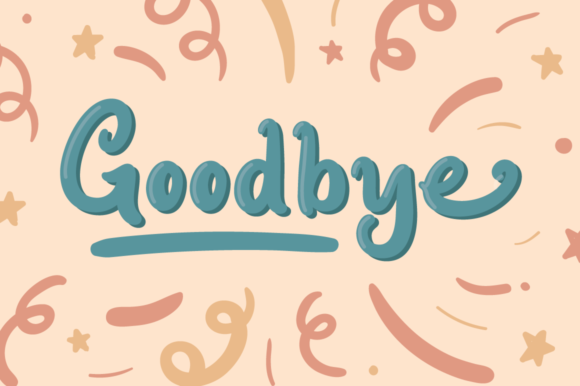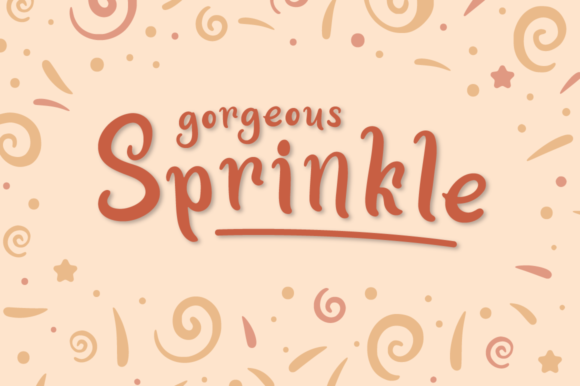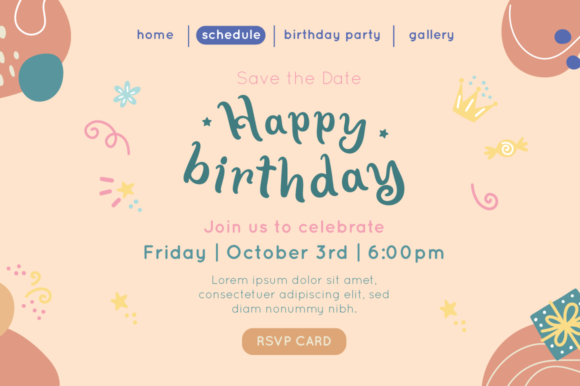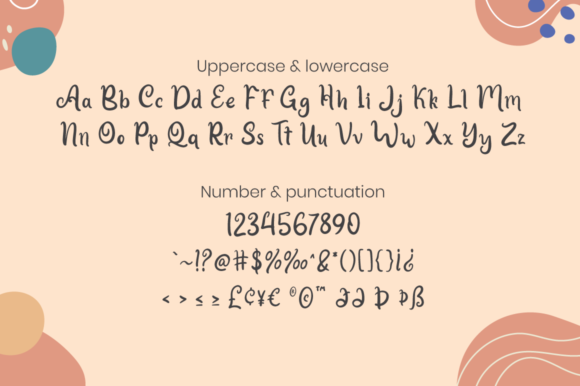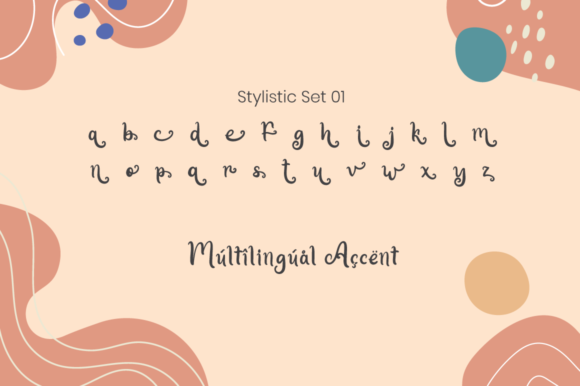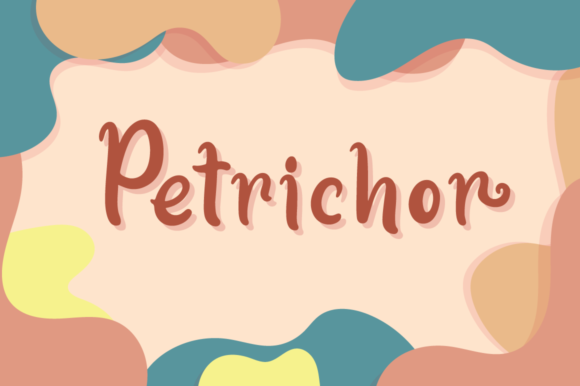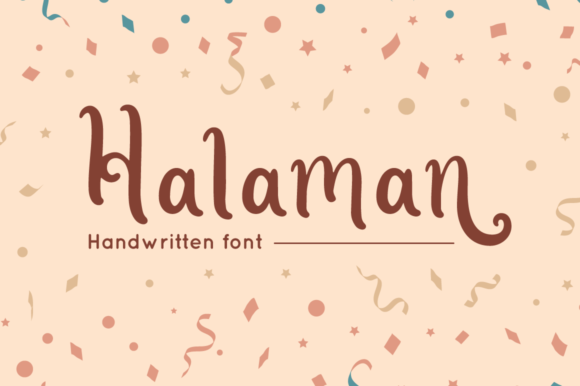
Halaman Font: The Ultimate Choice for Elegant and Whimsical Designs
Are you looking for a font that can add a touch of elegance and playfulness to your designs? Look no further than Halaman Font, a charming and curly handwritten font that is sure to capture your heart. With its ravishing style and versatility, Halaman Font is the perfect choice for designers and crafters who want to create stunning wedding invitations, beautiful stationary art, eye-catching social media posts, and more.
The Characteristics of Halaman Font
Halaman Font is a unique and stylish handwritten font that boasts a range of characteristics that make it stand out from the crowd. Its curly and whimsical design gives it a playful and romantic feel, making it perfect for designs that require a touch of elegance and sophistication. The font is highly legible, even at small sizes, making it ideal for use in a variety of applications, from digital media to print materials.
Uses of Halaman Font
One of the best things about Halaman Font is its versatility. It can be used in a wide range of design applications, including:
- Wedding Invitations: Create beautiful and elegant wedding invitations that will set the tone for your special day. Halaman Font’s curly and whimsical design adds a touch of romance and sophistication to any wedding invitation.
- Stationary Art: Add a touch of elegance to your stationary art with Halaman Font. From greeting cards to letterheads, this font is sure to make your designs stand out.
- Social Media Posts: Create eye-catching social media posts that will grab the attention of your followers. Halaman Font’s playful and curly design is perfect for creating engaging and shareable content.
- Branding and Packaging: Use Halaman Font to create stunning branding and packaging designs that will help your business stand out. From logos to product labels, this font is sure to add a touch of elegance and sophistication to your designs.
Benefits of Using Halaman Font
There are many benefits to using Halaman Font in your designs. Some of the top benefits include:
- Unique and Eye-Catching: Halaman Font’s curly and whimsical design makes it a unique and eye-catching addition to any design.
- Highly Legible: The font is highly legible, even at small sizes, making it ideal for use in a variety of applications.
- Versatile: Halaman Font can be used in a wide range of design applications, from digital media to print materials.
- Elegant and Sophisticated: The font’s elegant and sophisticated design makes it perfect for designs that require a touch of luxury and refinement.
Tips for Using Halaman Font
Here are a few tips for using Halaman Font in your designs:
- Use it Sparingly: While Halaman Font is a beautiful font, it can be overwhelming if used too much. Use it sparingly to add a touch of elegance and sophistication to your designs.
- Pair it with Other Fonts: Halaman Font pairs well with other fonts, such as sans-serif fonts. Experiment with different font combinations to find the perfect look for your design.
- Experiment with Colors: Halaman Font looks great in a variety of colors. Experiment with different colors to find the perfect look for your design.
In conclusion, Halaman Font is a charming and curly handwritten font that is sure to capture your heart. With its ravishing style and versatility, it’s the perfect choice for designers and crafters who want to create stunning wedding invitations, beautiful stationary art, eye-catching social media posts, and more. Whether you’re looking for a font that is elegant and sophisticated or playful and whimsical, Halaman Font is the perfect choice.